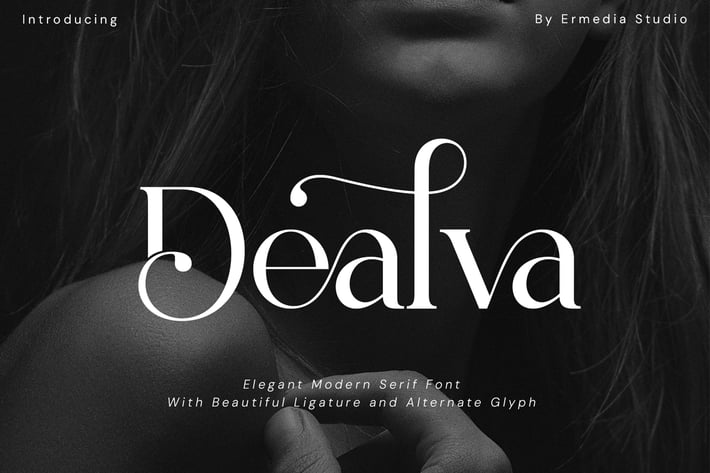
Dealva Serif Font
Introducing Dealva Serif Font is a modern, trendy, elegant and stylish serif font. It has a unique character. It is perfect to be combined with invitation card designs, company logos, movie titles, movie names, business cards, book titles, brand names and various other designs. Dealva Serif Font: is a modern, trendy and elegant serif font. This charming and stylish font makes it a perfect partner for any project.
- Uppercase and lowercase
- Numbering and Punctuation